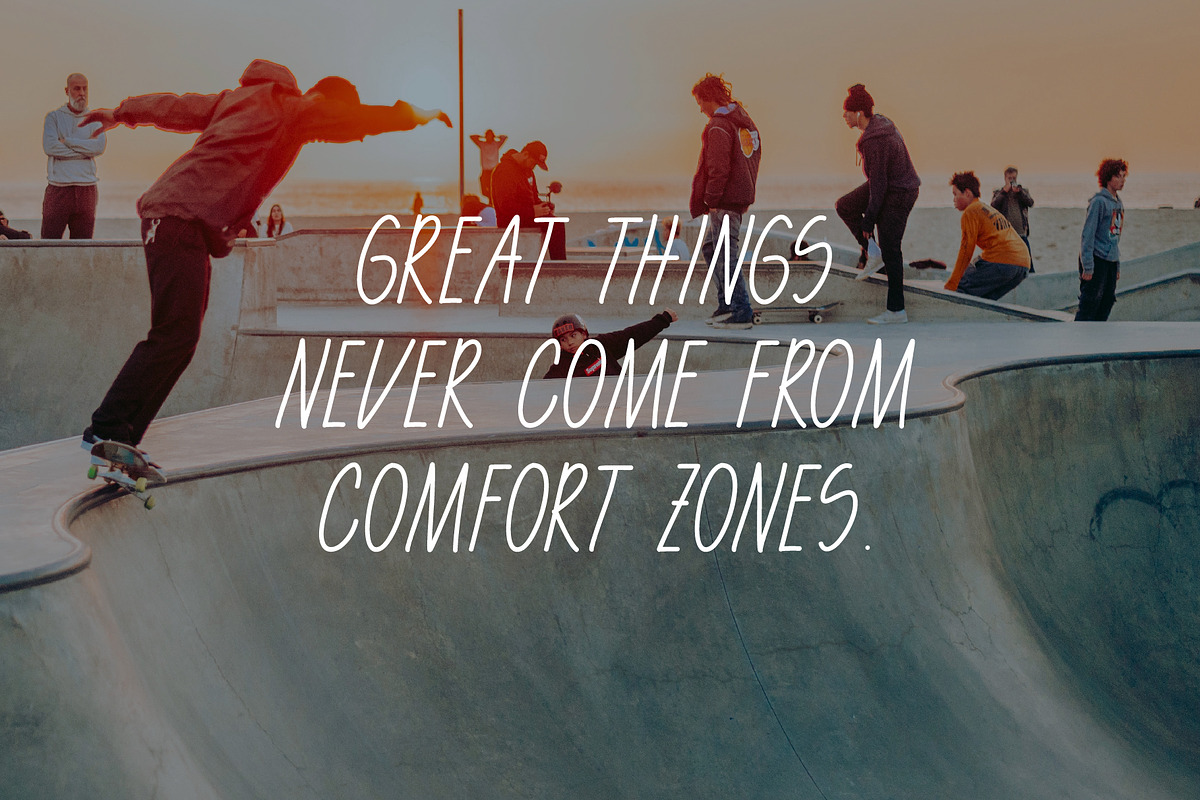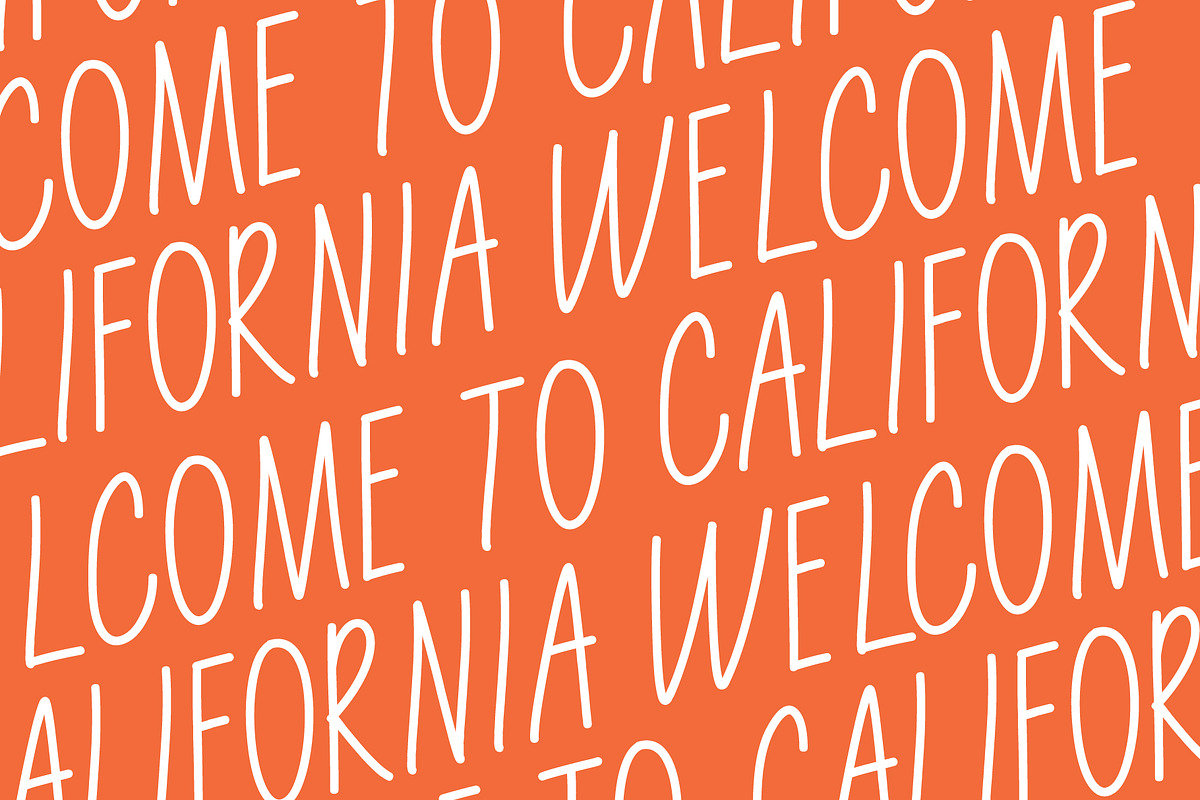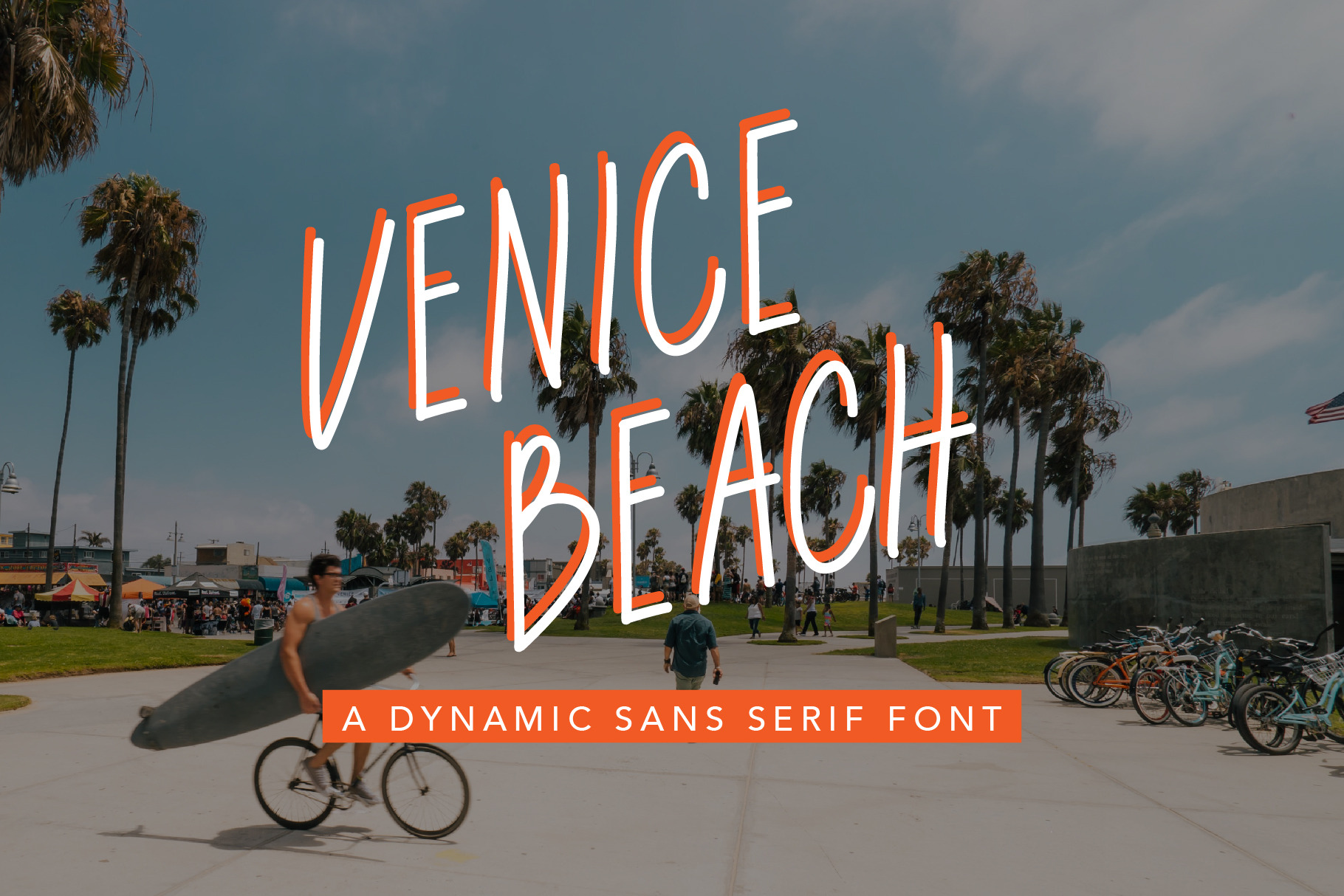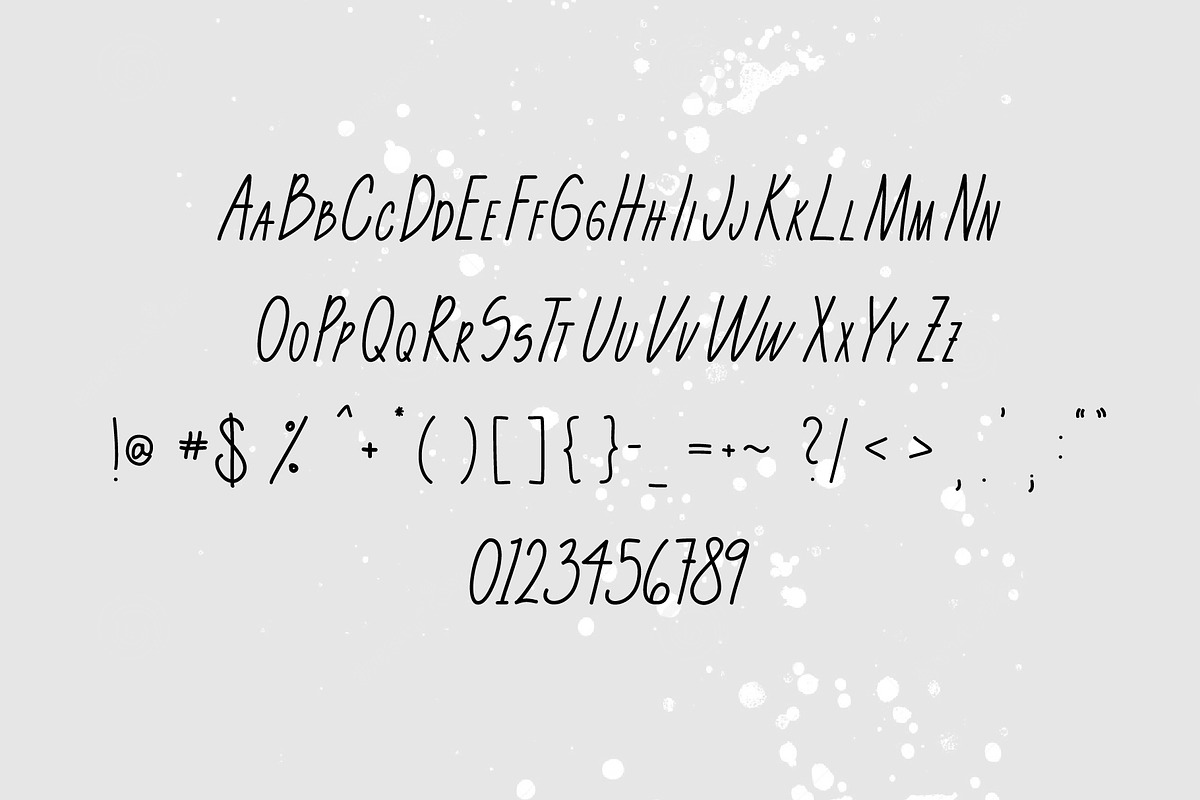
Venice Beach Font
"Venice Beach" is a dynamic font inspired by Venice Beach, CA and their prominent skate culture. It's great for logos, blogs, t-shirts, posters, custom goods, etc.
This font includes upper and lowercase glyphs, numbers, and punctuation.